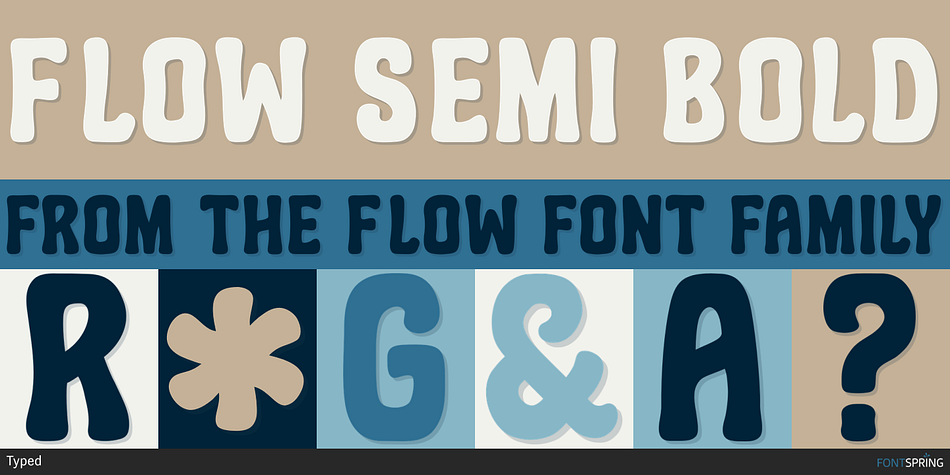
Flow Semi Bold
Flow is a display sans, display serif and display slab font family. This typeface has six styles and was published by Typed.
Flow is a relaxed font family that finds a happy balance between work and play. All fonts are caps only.